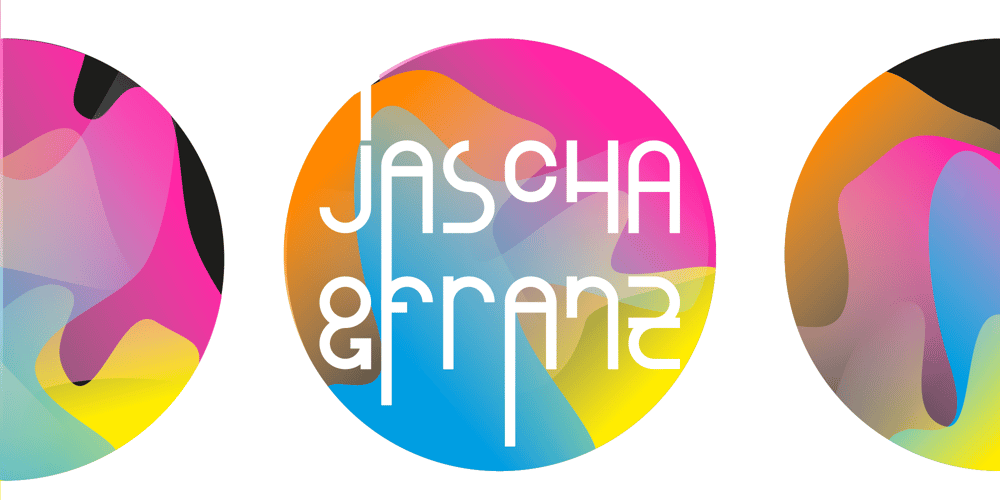
Regular Bien Font Family was designed by Jascha Kretschmann, Franz Thöricht and published by JASCHA&FRANZ. Regular Bien contains 1 styles and family package options. Regular Bien is a display font that is created out of two shapes – a circle and a line.It has a plain and a mutated face, depending on the usage of lowercase or capital letters.Regular Bien can be used in various fun ways and connections between lines.